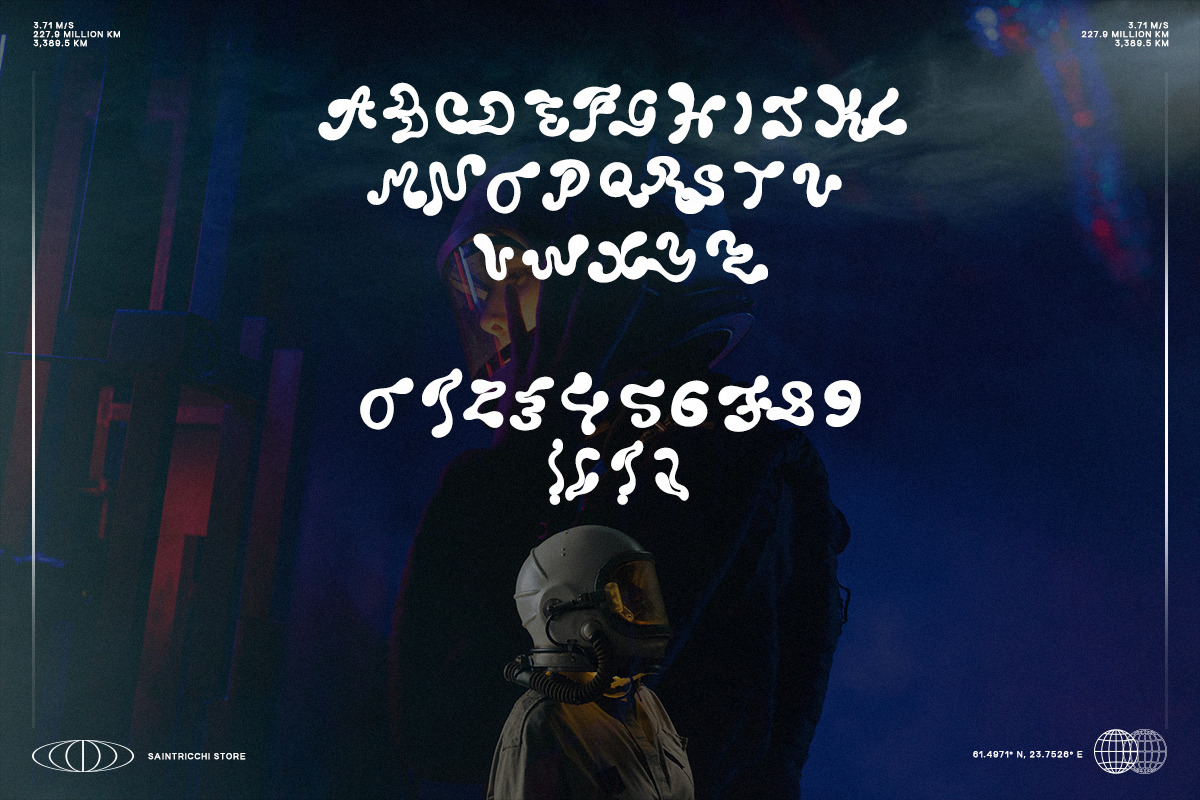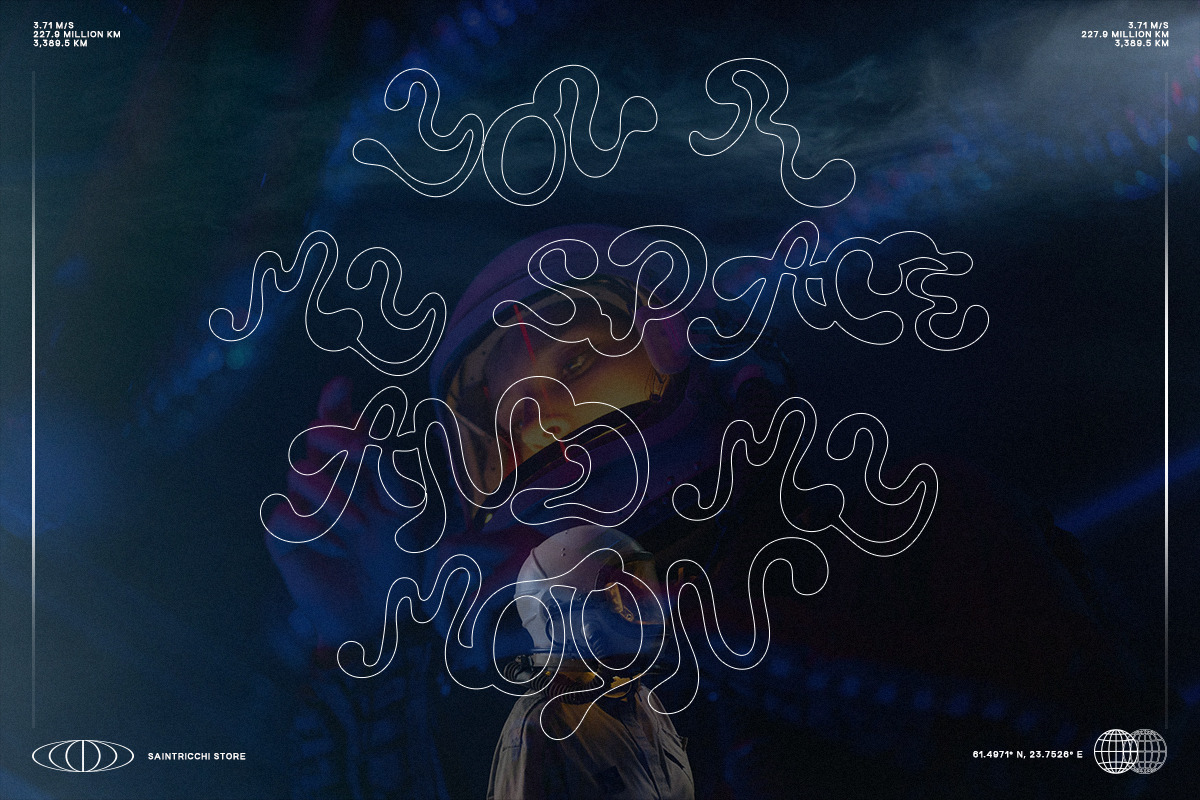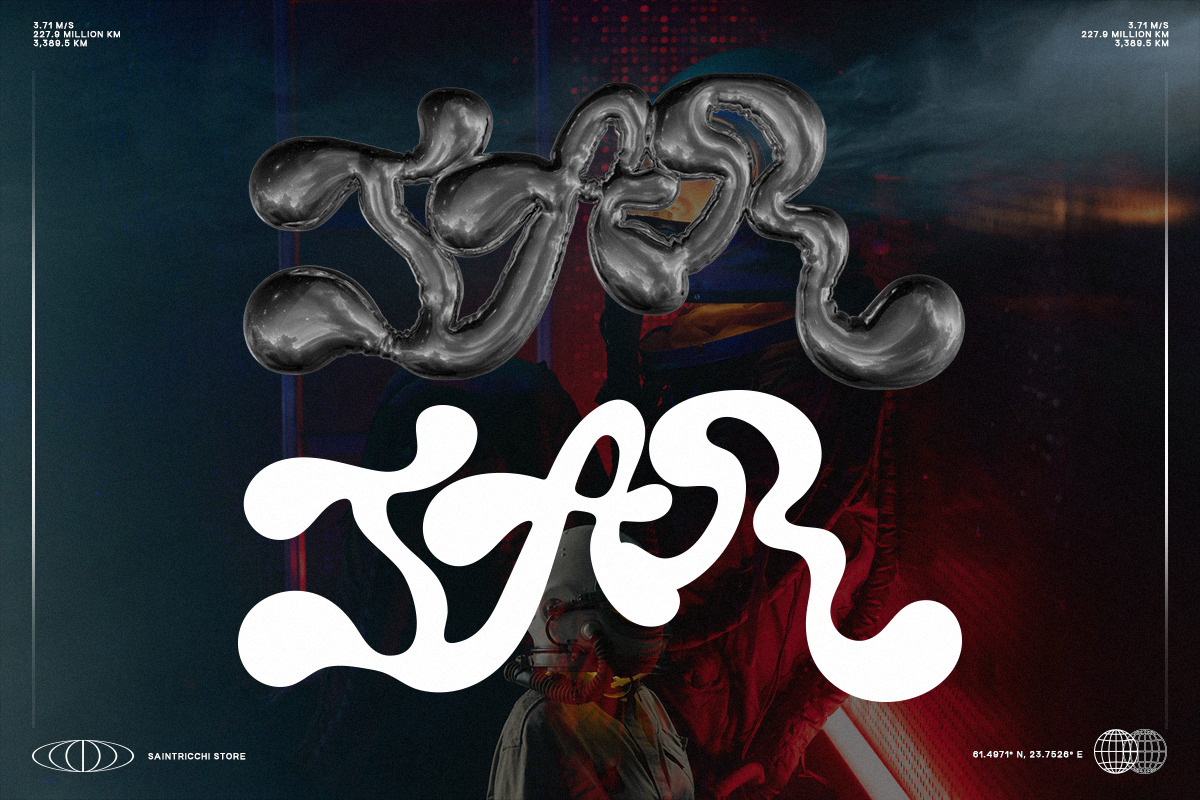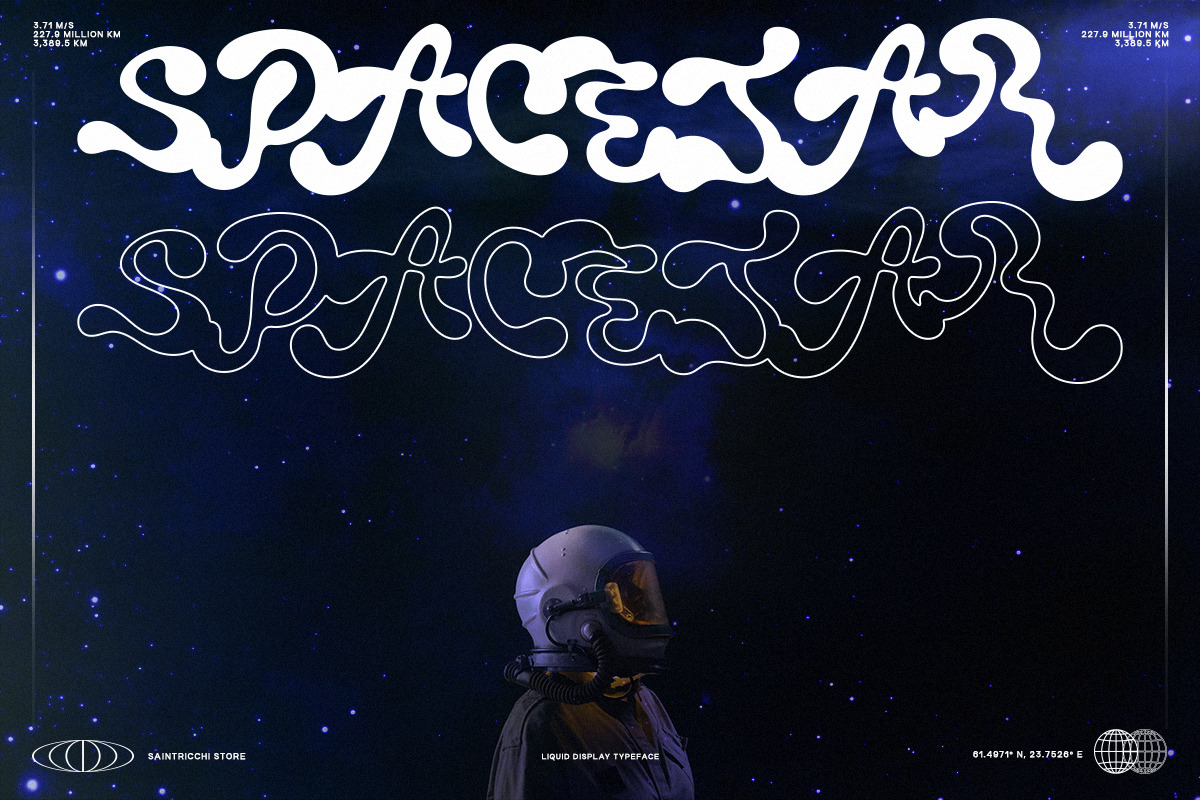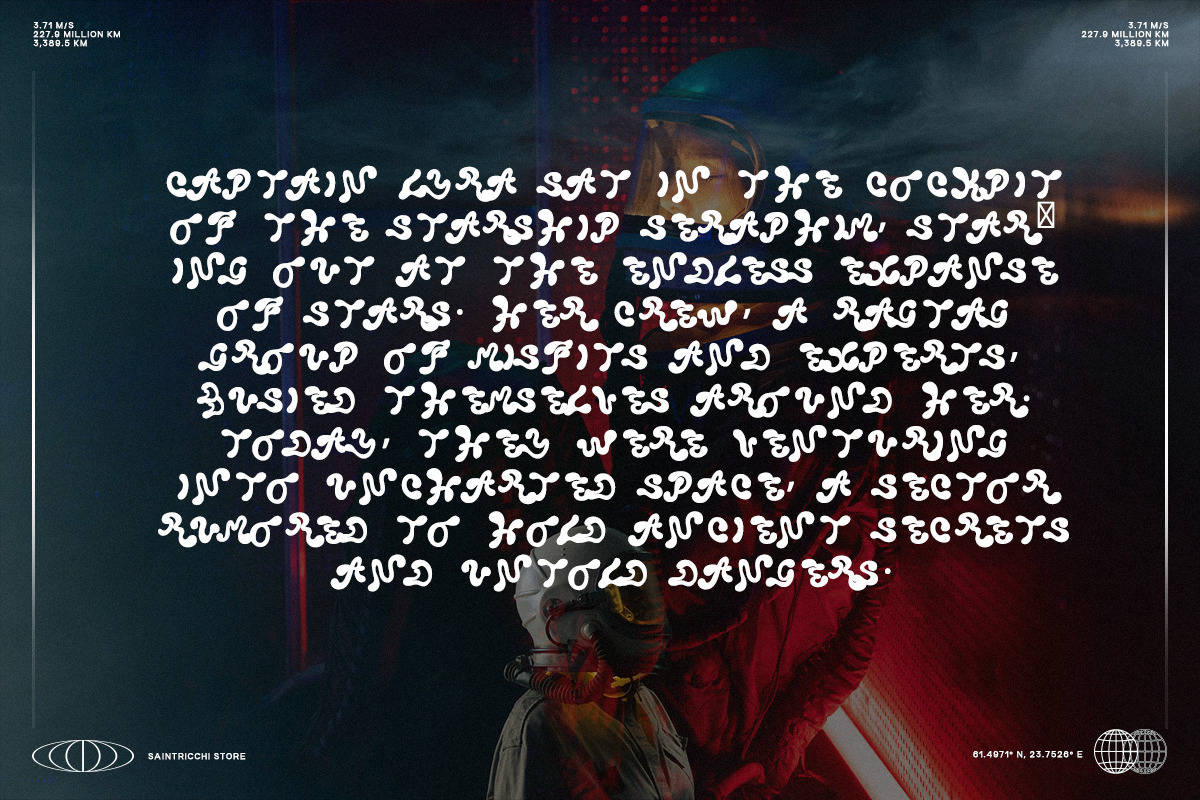
Spacejar - Liquid Display Font
Introducing Spacejar, the ultimate liquid display font handcrafted for your boldest design needs. Perfect for logotypes, big titles, posters, and covers, Spacejar combines a unique fluidity with striking visual appeal. Elevate your projects with its distinct character and make a lasting impression. Choose Spacejar for a versatile and captivating typeface that stands out in any design.
- A-Z
- 0-9
- ( ! ? ) symbols